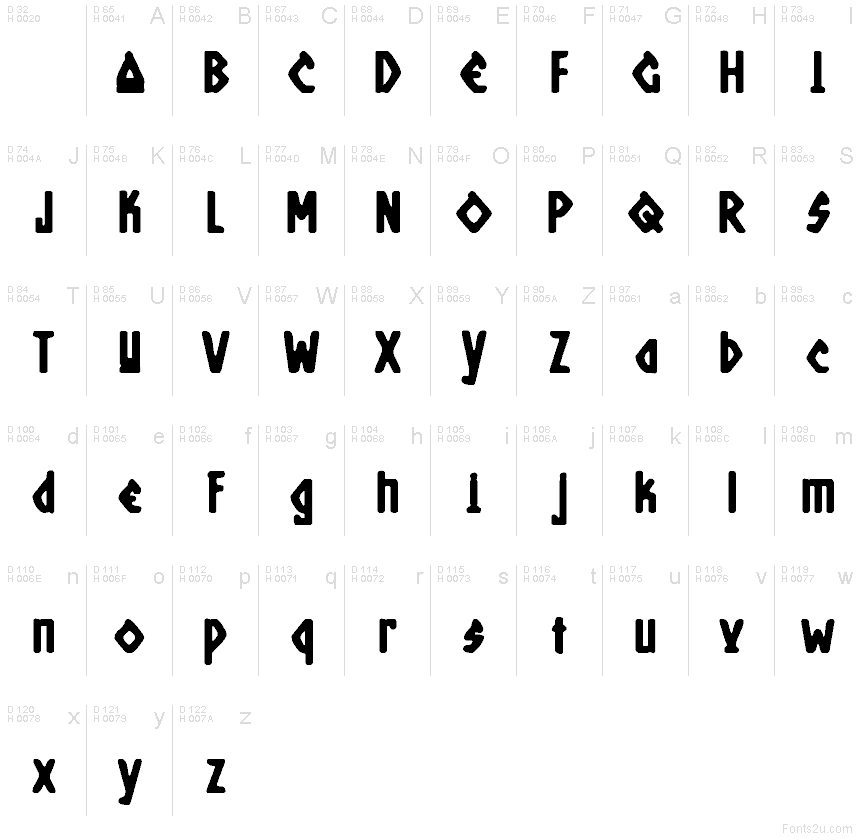
CS Axone Drawn font by Craft Supply Co. is a free bold Greek-style display font built around carved, hand-drawn forms. Chunky strokes with softly chipped edges and diamond-like counters give it a hewn-from-stone feel, while the rhythm stays compact and readable. As part of the CS Axone family, it carries a vintage Mediterranean vibe without slipping into kitsch.
Using CS Axone Drawn, headlines snap with mythic heft that still feels friendly—great for restaurant branding, beer labels, poster titles, museum exhibits, travel covers, festival merch, and café menus. The tight spacing and sculpted curves create a strong silhouette at large sizes. For balance, pair this free font with a light, neutral sans from the CS Axone family and keep body text one or two weights lighter.